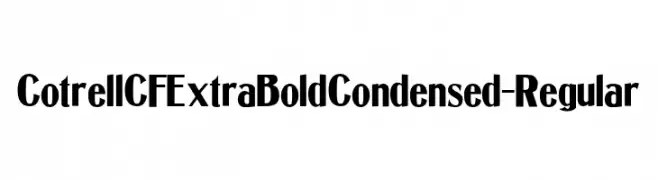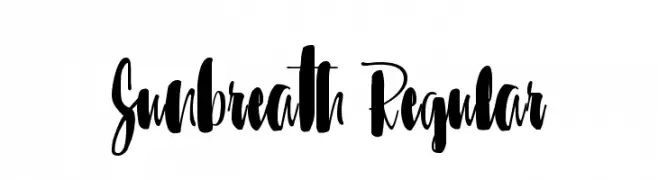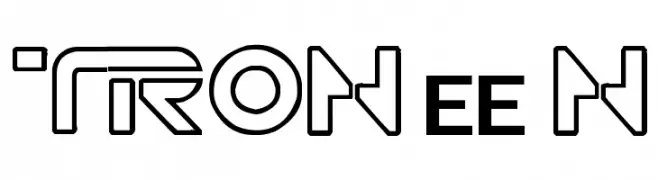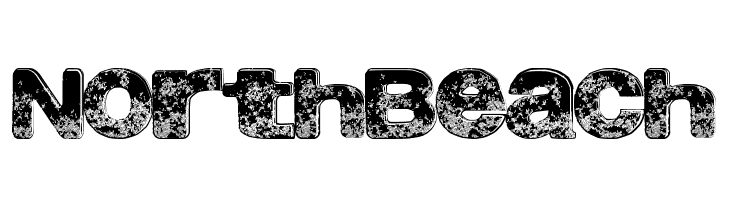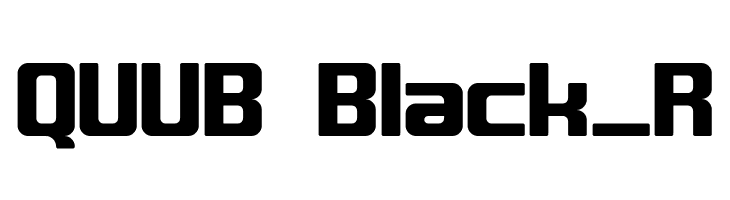
A bold, condensed font with strong, impactful strokes.
A distressed, grunge-style font with rough, textured edges and high contrast.
A bold, expressive script font with a modern, hand-drawn aesthetic.
A playful, rounded font with smooth lines and a friendly appearance.
A bold, condensed italic font with a futuristic and dynamic style.
A futuristic, geometric font with high contrast and a modern, tech-inspired design.
A modern, geometric font with a futuristic and tech-inspired design.